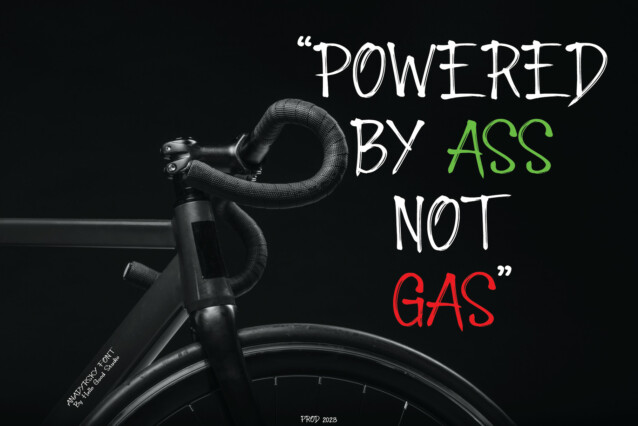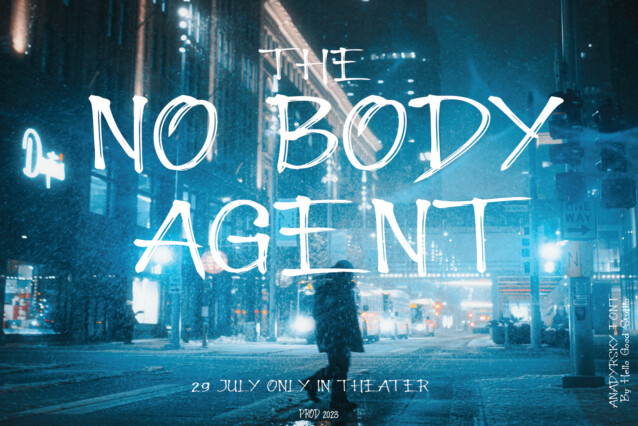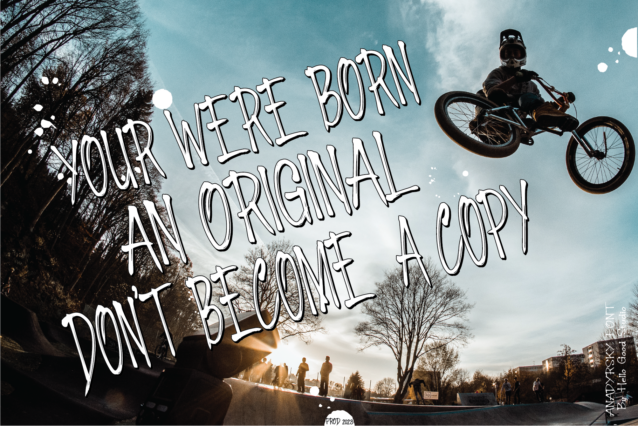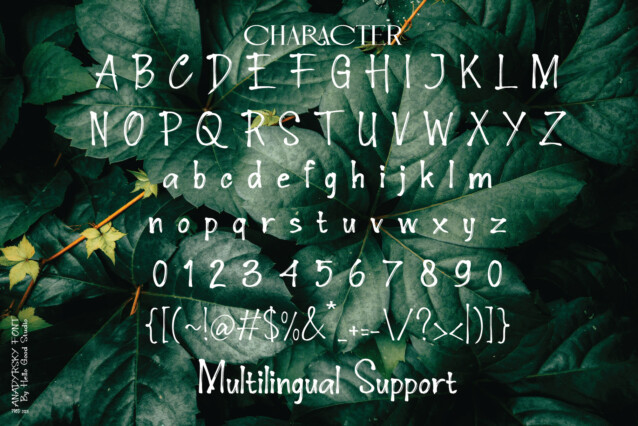
Anadyrsky Font
Anadyrsky Font is a very natural and unique handwritten font, this font is made by writing directly with a pen on a piece of paper, this font is suitable for you as a creative worker, which is usually used for banners, displays of handicraft products, clothing, and others. Make sure you have this font collection on your device.